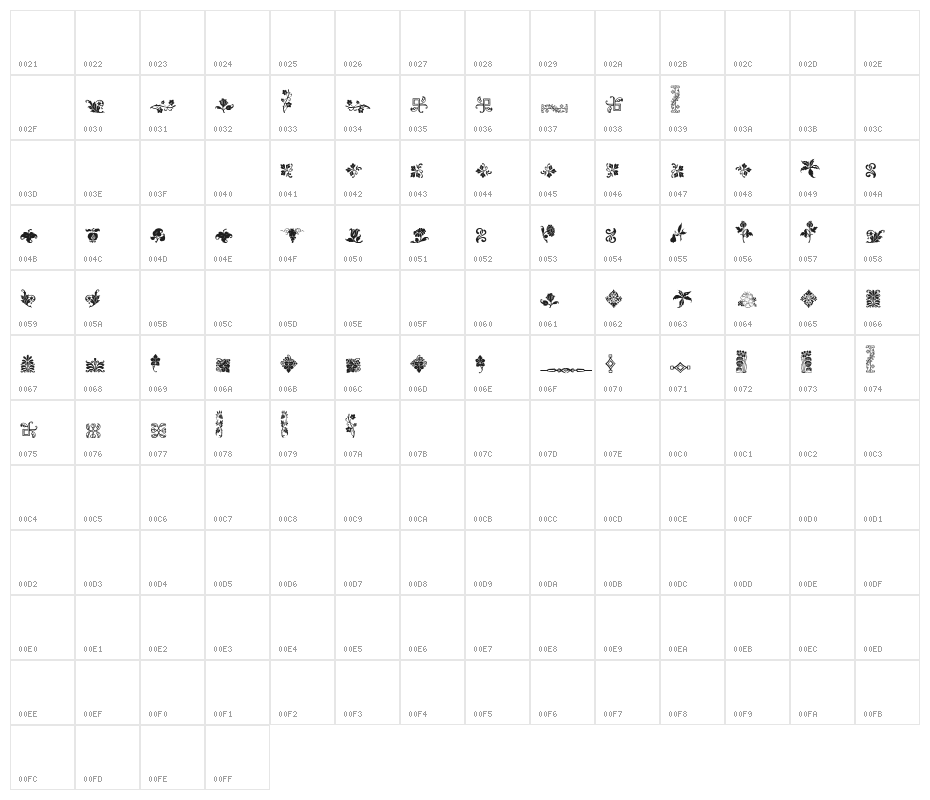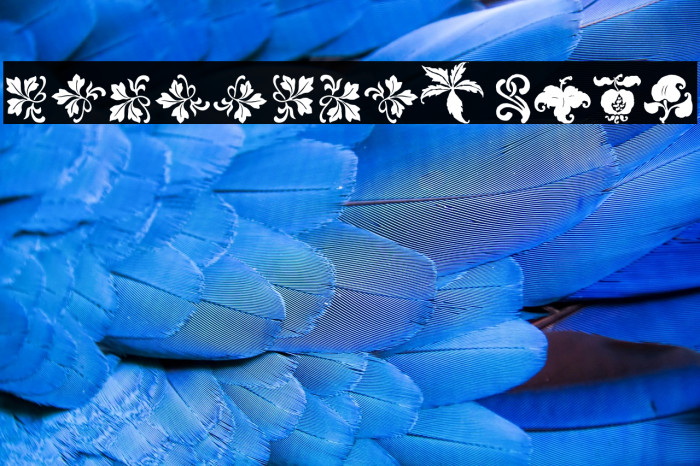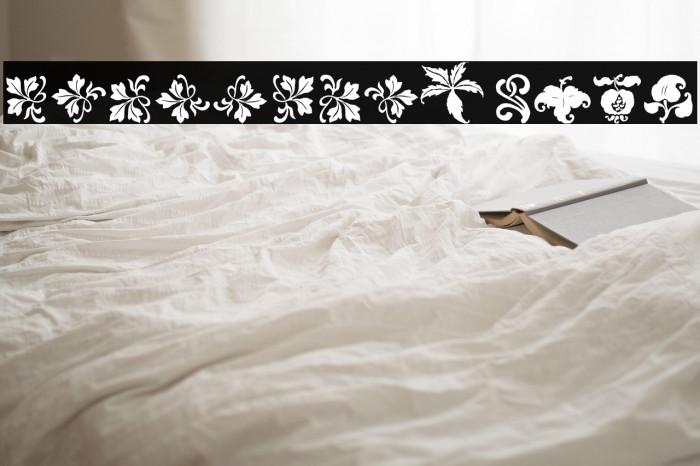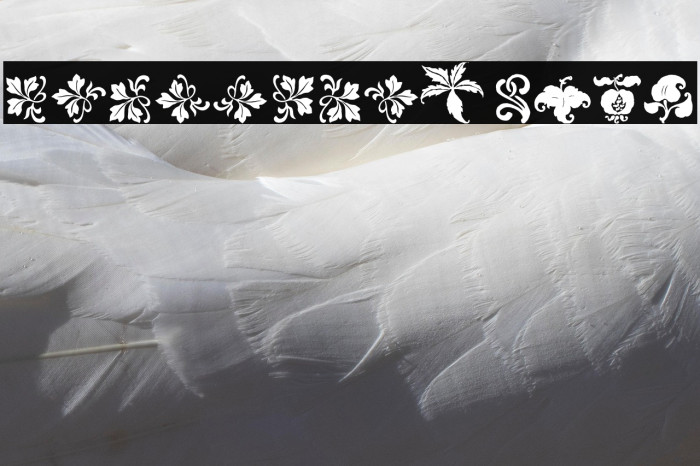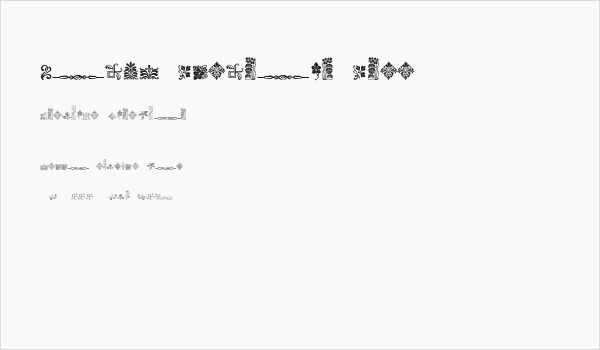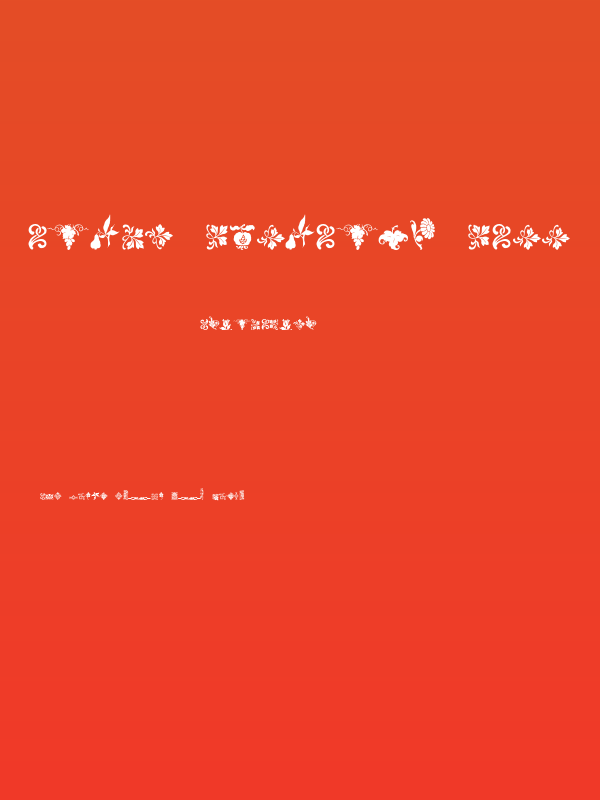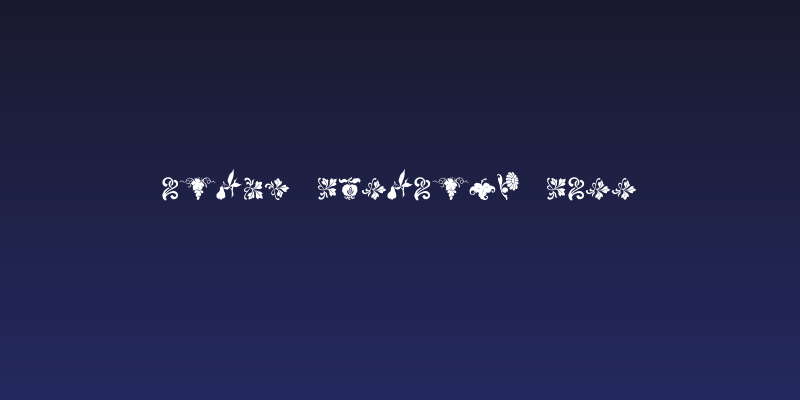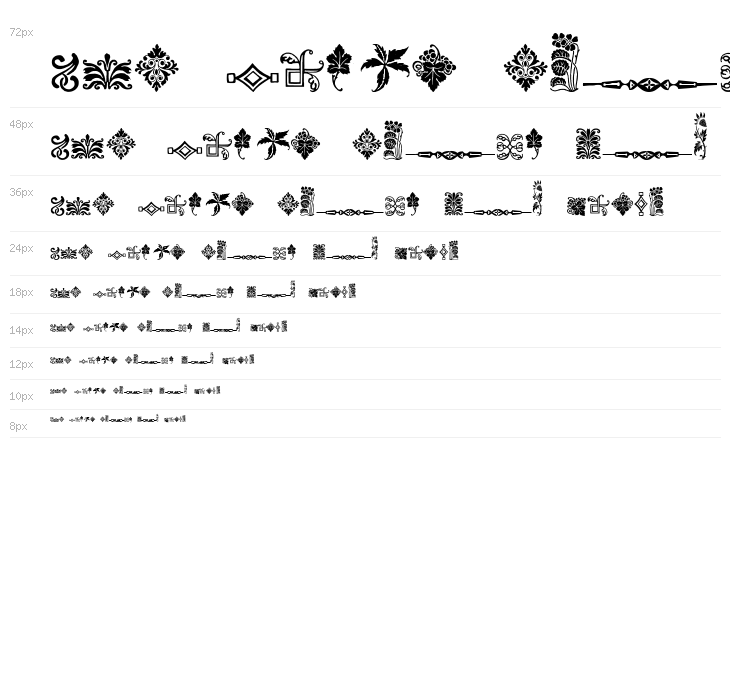
Rough Fleurons Free Font
Rough Fleurons Free Description
This collection features a variety of intricate floral and ornamental designs, each showcasing a unique blend of natural motifs and decorative elements. The designs are highly detailed, with a focus on symmetry and elegance, making them ideal for embellishing printed materials or digital projects. The motifs include leaves, flowers, and abstract shapes, each crafted with precision to create a harmonious and visually appealing pattern. These elements can be used individually or combined to form borders, frames, or decorative accents, adding a touch of sophistication and artistry to any project.
Overall StyleVintage
Use CaseDecorative accents, Borders, Frames
Proposed ProjectsIdeal for wedding invitations, greeting cards, book covers, and decorative borders.